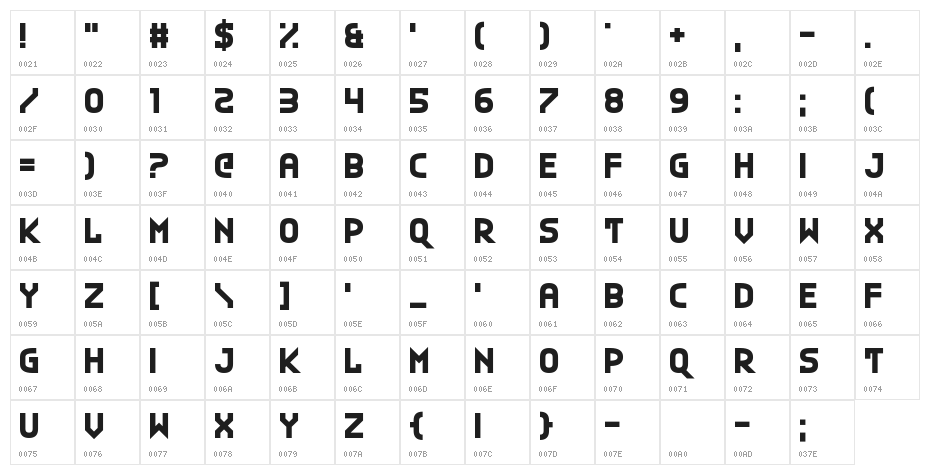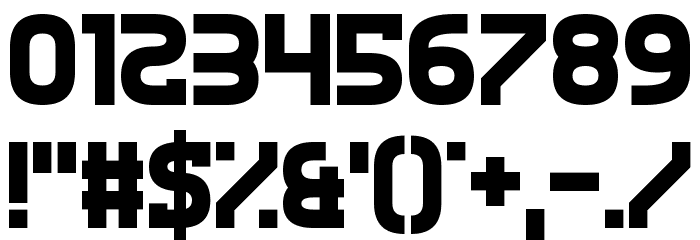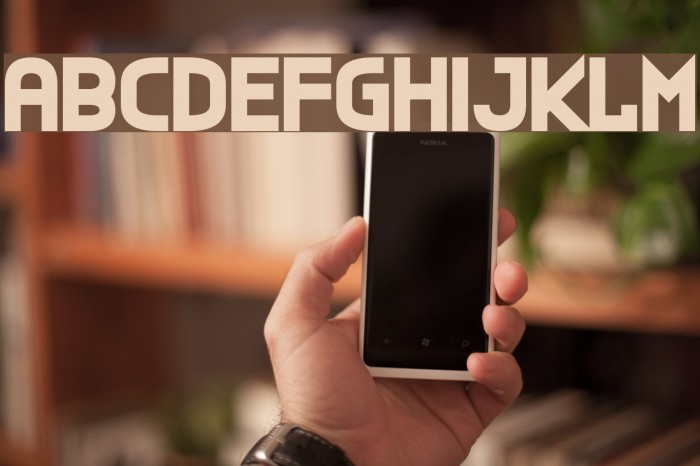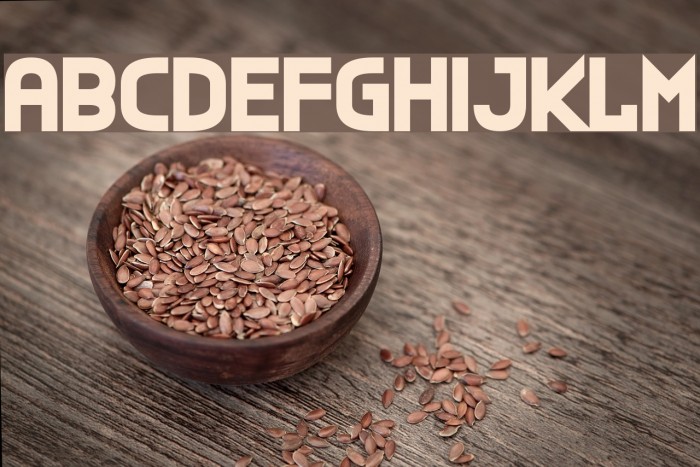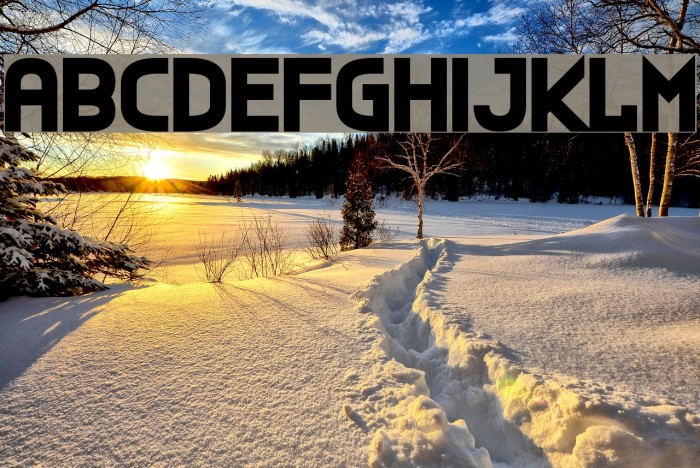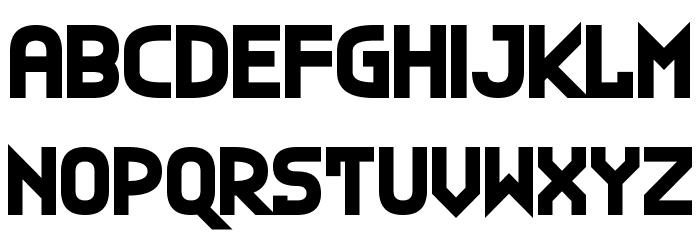
Plan G Font
Plan G Description
This font features a bold and geometric design with a modern flair. The characters are constructed with thick, uniform strokes, giving them a strong presence. The angular cuts and sharp edges add a futuristic touch, making it stand out in any design. The uppercase and lowercase letters maintain a consistent style, while the numerals and special characters are designed to complement the overall aesthetic. The font's structure is clean and precise, making it suitable for a variety of applications where clarity and impact are essential.
| Proposed Projects | Ideal for branding, posters, headlines, and digital interfaces where a strong visual impact is desired. |